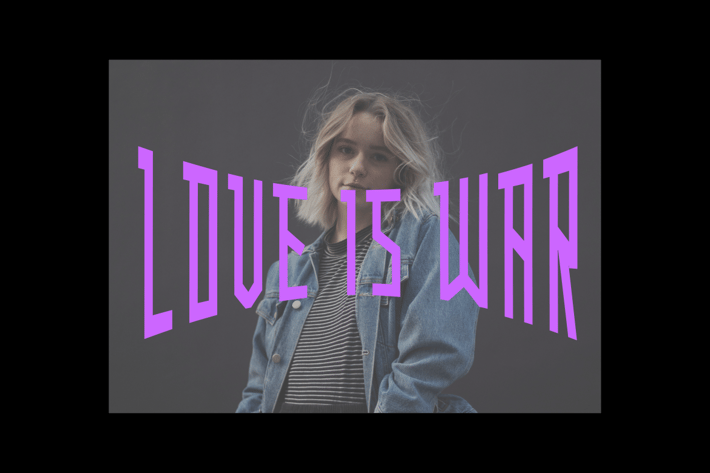
Love Is War Font
Introducing our new product Love Is War Font - Modern Font
Love Is War Font - Modern Font is a bold and authentic display font. The font is suitable for any branding project like logo, t-shirt printing, esport, and many more. outstanding in a wide range of contexts.